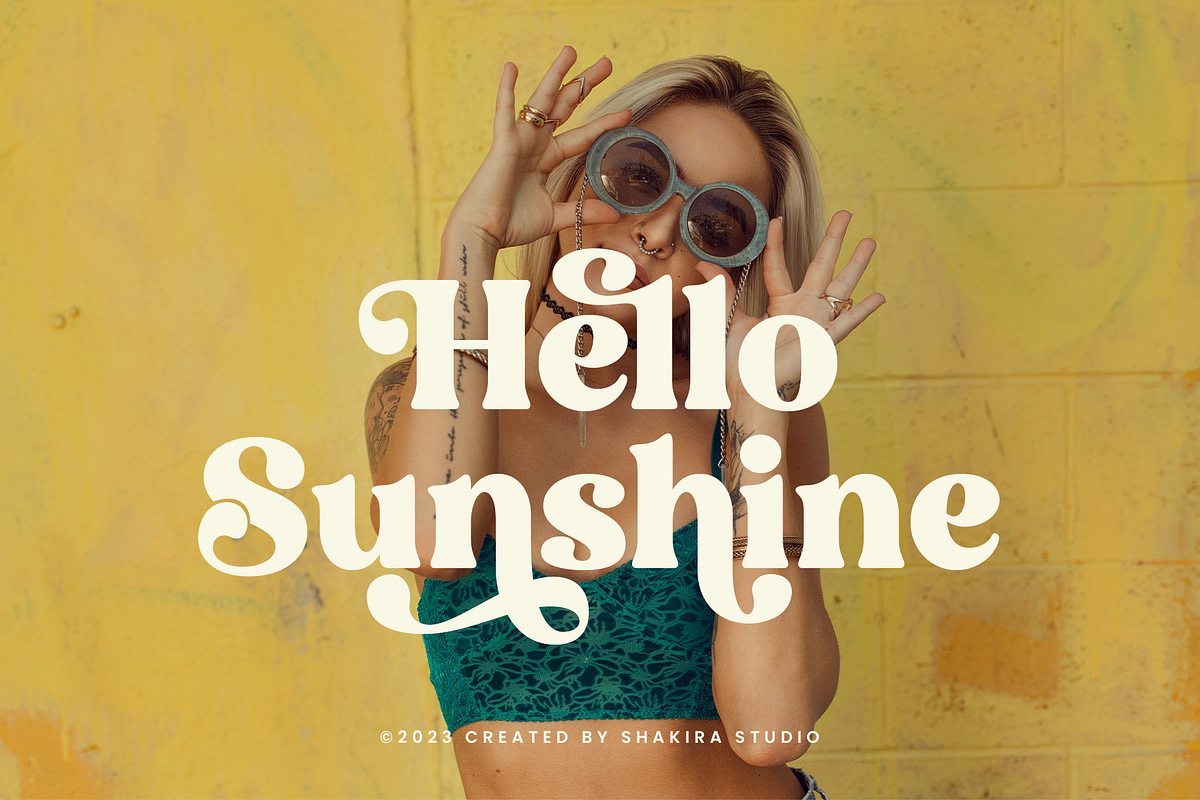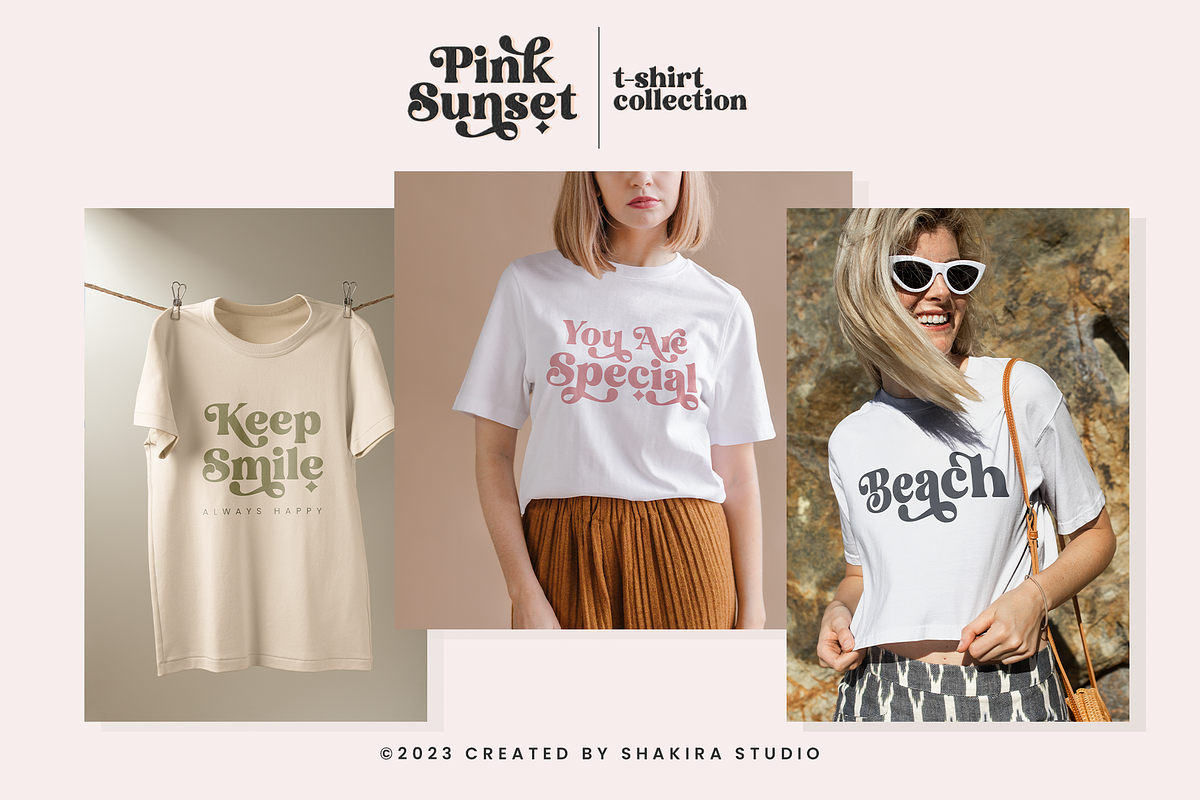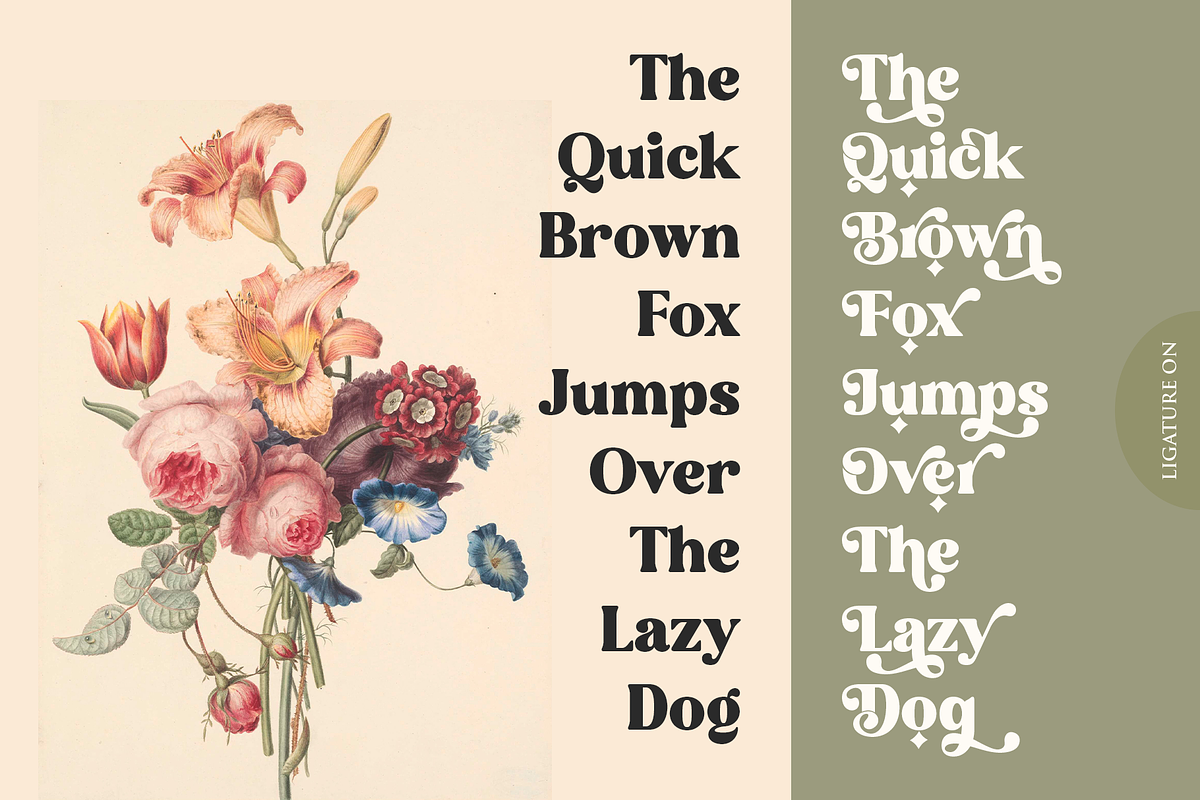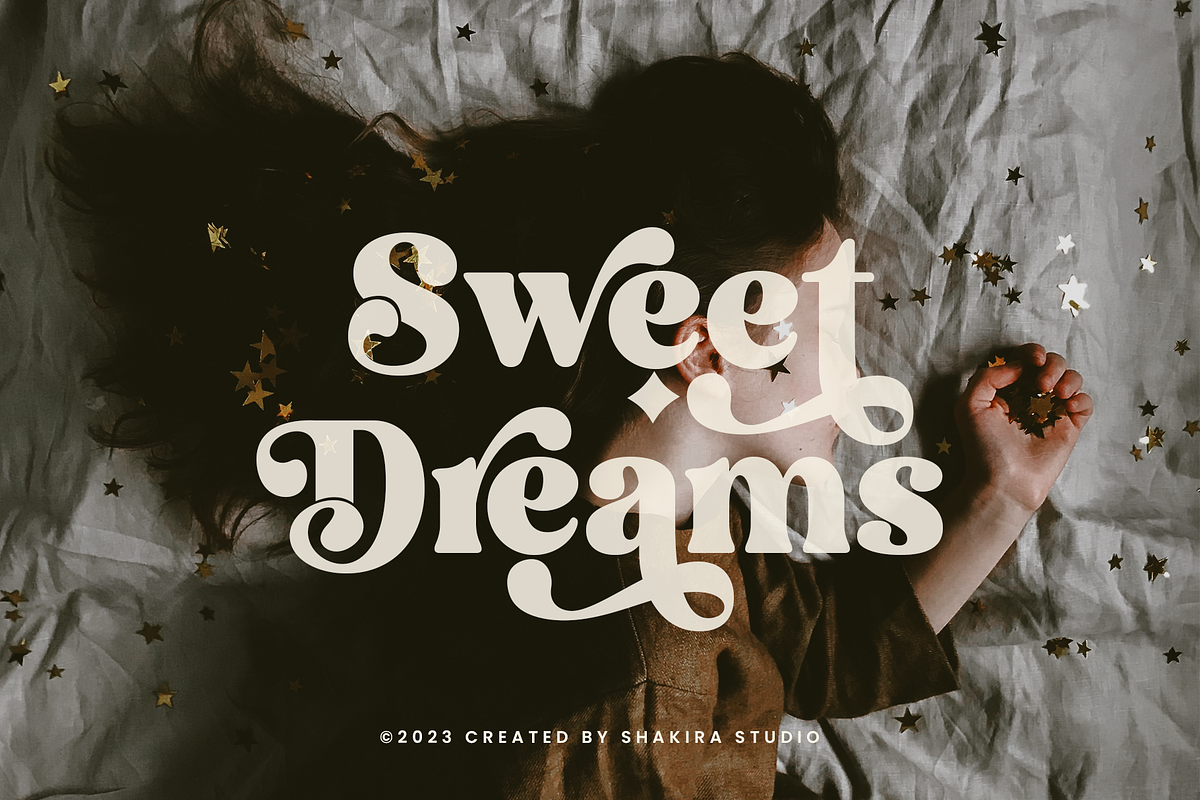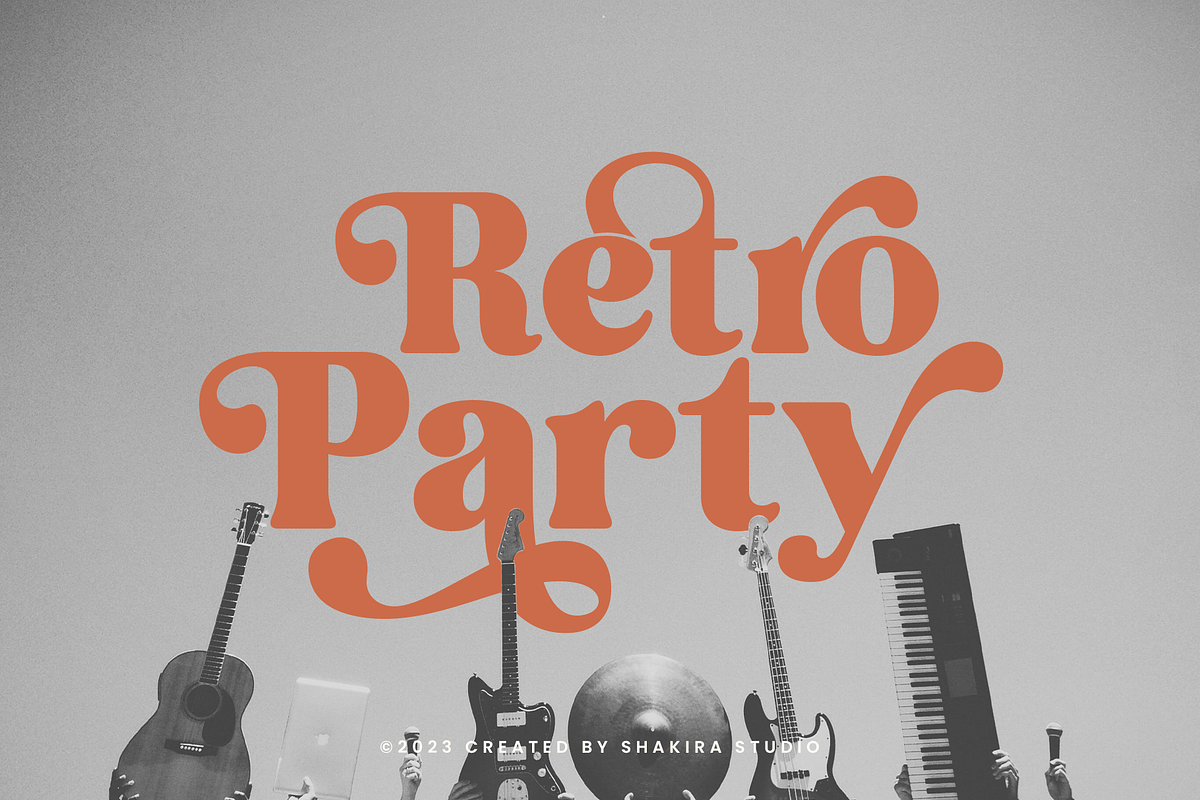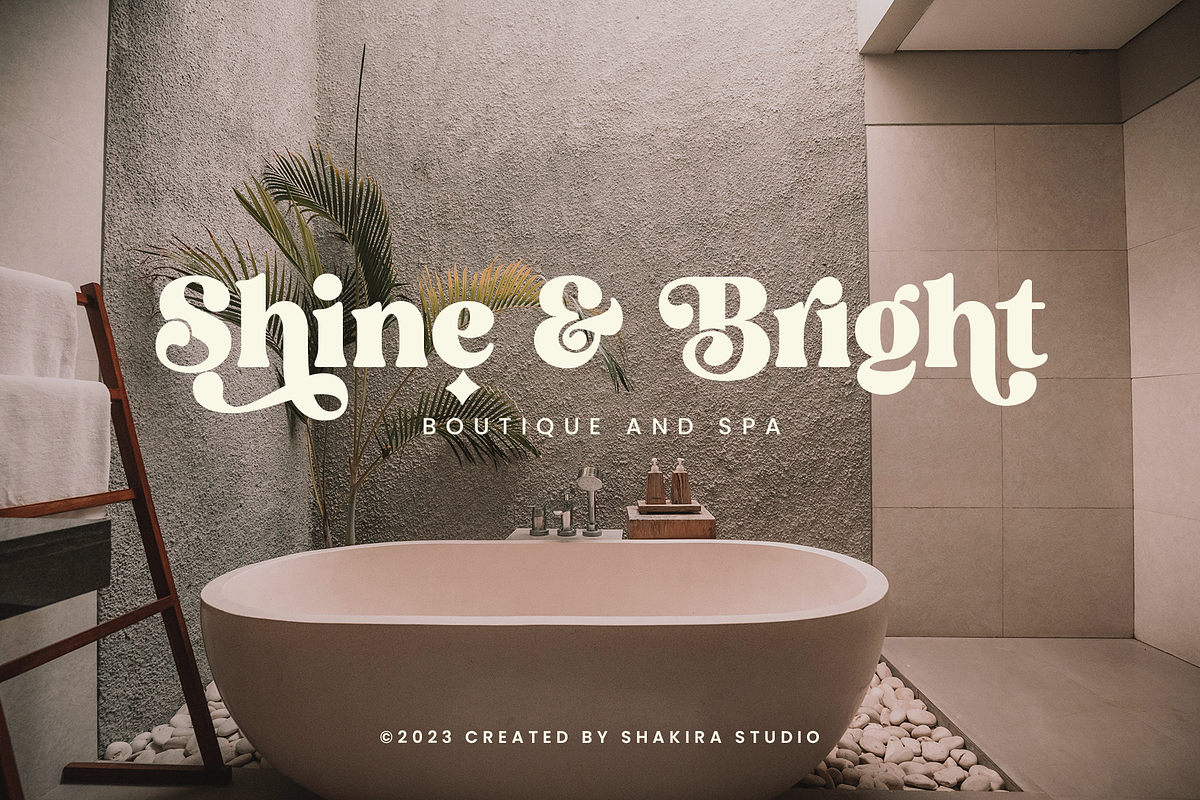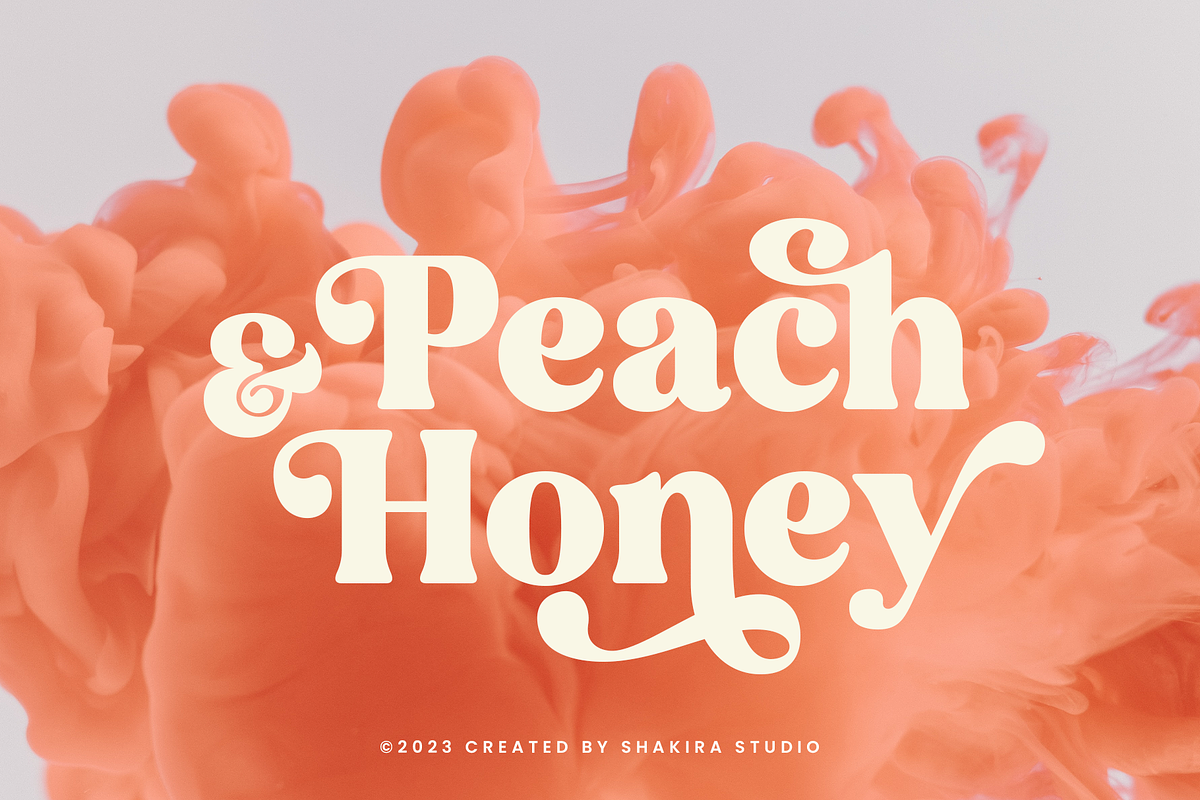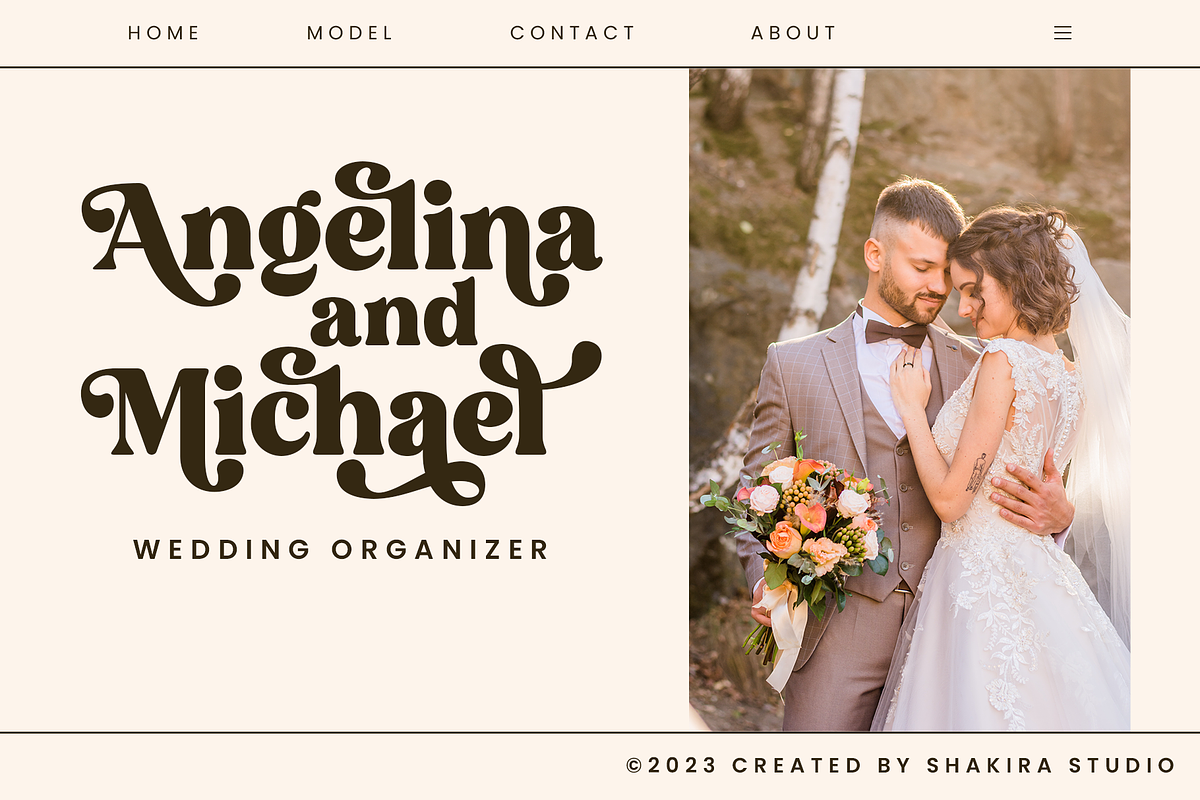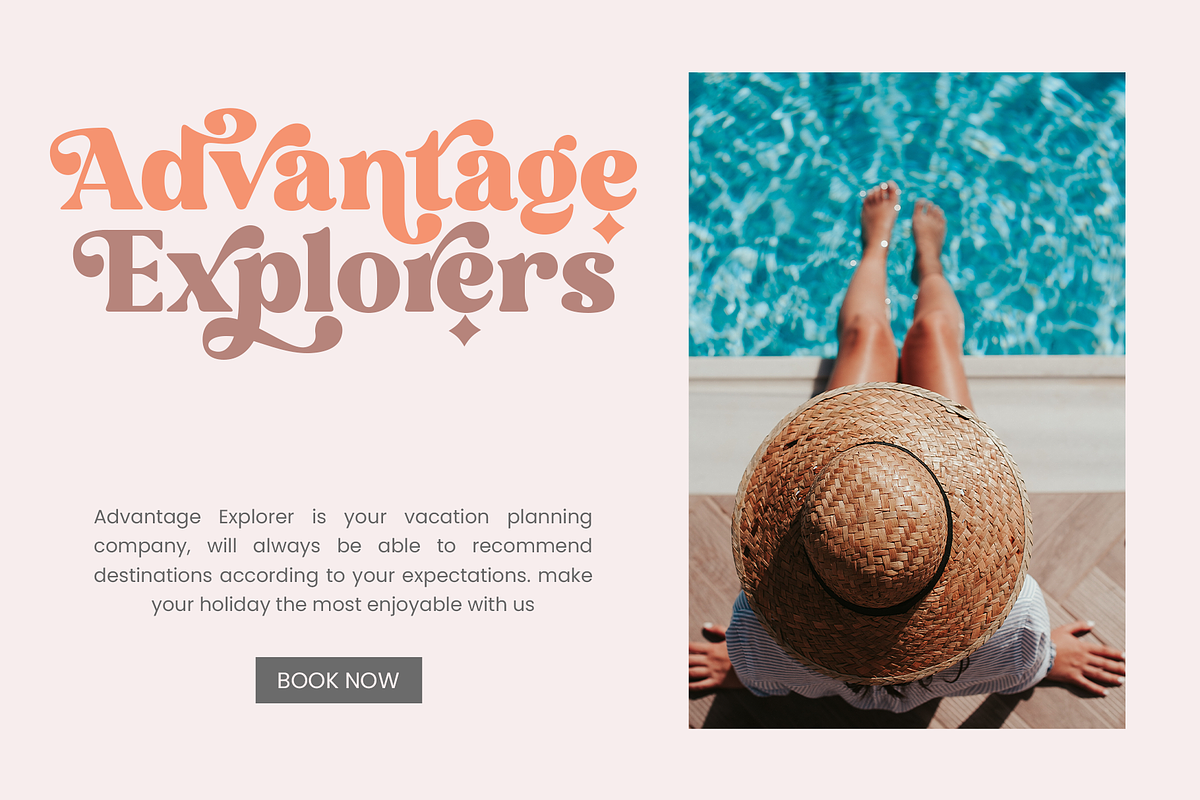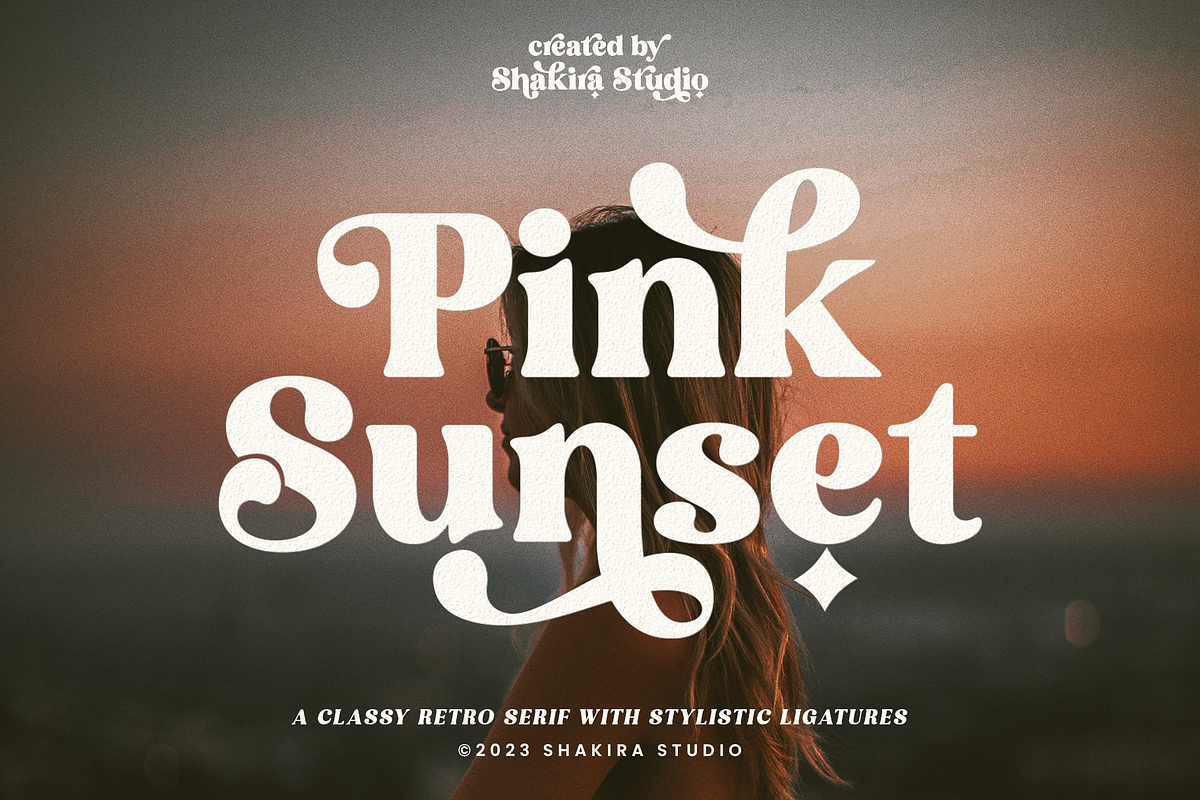
Pink Sunset - Retro Serif
Pink Sunset is a stylish font It has both modern and retro look - clear, modern and fun. Helps to create layout design in 60s or 70s design projects.
This font have more than 50 unique alternate and ligature that to give your logo,business card and another project to a unique vintage look. It has Italic version too so what a perfect vintage font!
- Unique letterforms